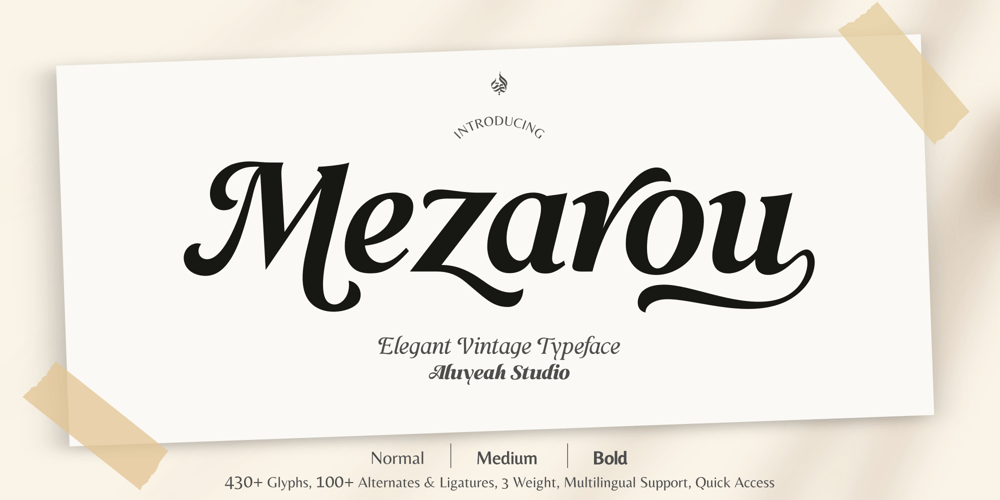
Al Mezarou
Al Mezarou font
Al Mezarou Font Family was designed by Linggar Sundoro and published by Aluyeah Studio. Al Mezarou contains 3 styles and family package options. Hello Aluyeaholics! Introducing Mezarou, an elegant and vintage typeface perfect for adding a touch of retro style to your projects. Coming with 100+ alternates and ligatures, Mezarou gives you endless possibilities for creating unique designs. Available in 3 different weights for added versatility. And with quick access to alternates characters, you can effortlessly create stunning layouts with this timeless font. It can be applied to many areas of design. Very suitable for packaging, apps, magazine, headline, website, ads and all type of design project you have. To get results like the preview, in the design software you use, select this font then just write M.2ez.2ar.2ou.5